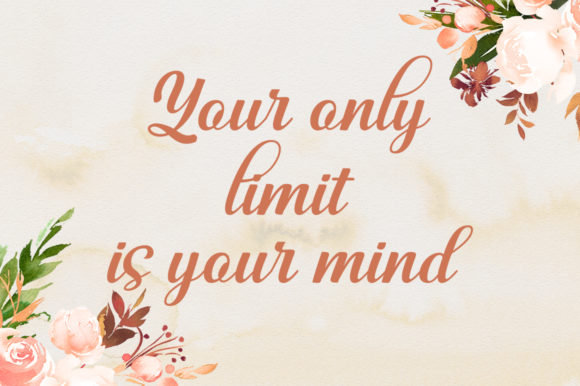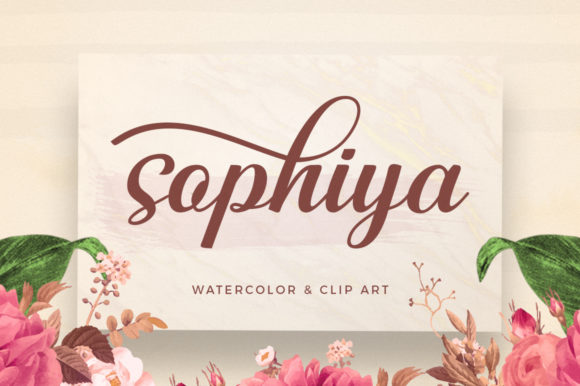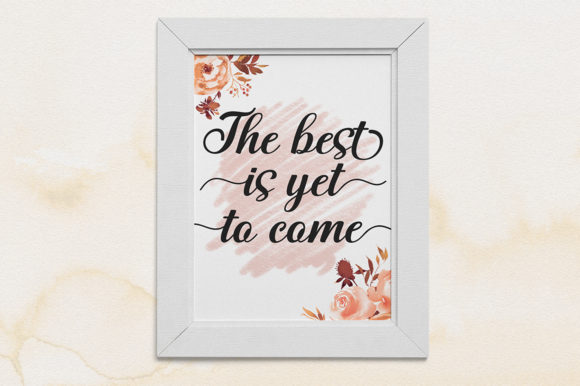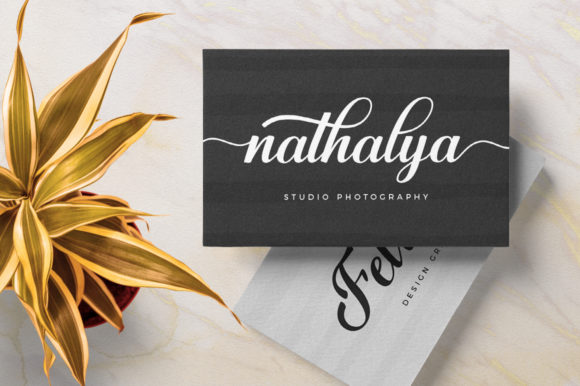
Introducing Granelly Script Font: A Timeless Classic for Creative Projects
Are you on the hunt for a font that exudes elegance, sophistication, and a touch of classic charm? Look no further than Granelly Script Font. This beautiful, handwritten font is perfect for a wide range of creative projects, from logos and wedding invitations to headings, t-shirts, and more.
The Versatility of Granelly Script Font
One of the standout features of Granelly Script Font is its incredible versatility. Its classic, cursive design makes it suitable for a variety of applications, including:
- Logos: Create a lasting impression with a custom logo that showcases your brand’s personality and style.
- Wedding Invitations: Set the tone for a fairytale wedding with beautifully designed invitations that feature Granelly Script Font.
- Headings: Add a touch of elegance to your blog posts, articles, or website with Granelly Script Font.
- T-Shirts: Design eye-catching apparel that makes a statement with this lovely font.
- Letterhead: Elevate your business correspondence with a professional, custom letterhead that features Granelly Script Font.
- Signage: Create eye-catching signs that grab attention and leave a lasting impression.
- Labels: Design custom labels that add a personal touch to your products or gifts.
- News: Use Granelly Script Font to add a touch of sophistication to your news articles or blog posts.
- Posters: Create stunning posters that showcase your creativity and style.
- Badges: Design custom badges that feature Granelly Script Font and add a touch of elegance to your event or product.
The Characteristics of Granelly Script Font
So, what makes Granelly Script Font so special? Here are a few key characteristics that set it apart:
- Classic and Timeless: Granelly Script Font has a classic, timeless design that never goes out of style.
- Handwritten: This font has a beautiful, handwritten feel that adds a personal touch to any project.
- Elegant and Sophisticated: Granelly Script Font exudes elegance and sophistication, making it perfect for high-end projects or brands.
- Highly Readable: Despite its elegant design, Granelly Script Font is highly readable, even at smaller sizes.
Why Designers and Crafters Love Granelly Script Font
Granelly Script Font has become a favorite among designers and crafters, and for good reason. Here are a few reasons why:
- Customizable: With Granelly Script Font, you can create custom designs that reflect your brand or personal style.
- High-Quality: This font is of exceptionally high quality, with crisp and clear lines that look great on any device.
- Support for Multiple Languages: Granelly Script Font supports multiple languages, making it a great choice for international projects.
Tips for Using Granelly Script Font
Here are a few tips for getting the most out of Granelly Script Font:
- Pair it with Other Fonts: Granelly Script Font pairs well with other fonts, such as sans-serif fonts or serif fonts.
- Use it for Headlines: Granelly Script Font is perfect for headlines, but it can also be used for body text.
- Make it Your Own: Don’t be afraid to experiment and make Granelly Script Font your own.
In conclusion, Granelly Script Font is a timeless classic that is perfect for designers and crafters looking to add a touch of elegance and sophistication to their projects. With its versatility, classic design, and highly readable characters, Granelly Script Font is sure to become a favorite in your font collection.